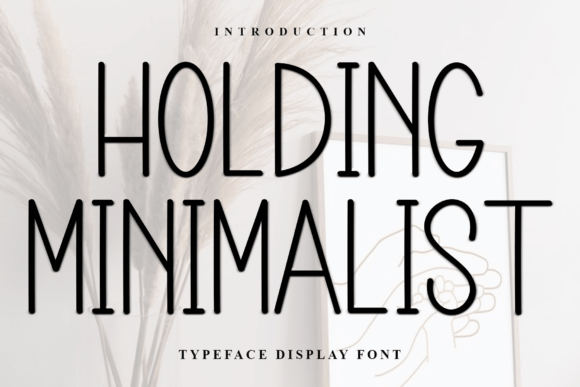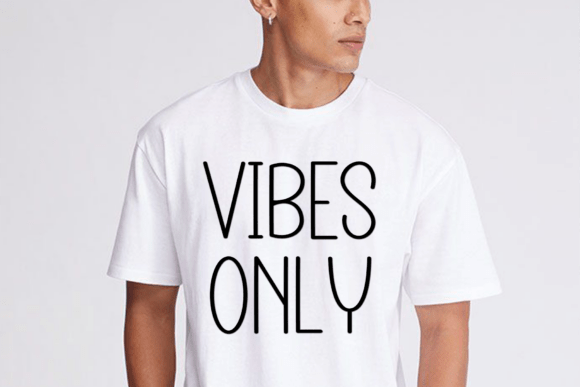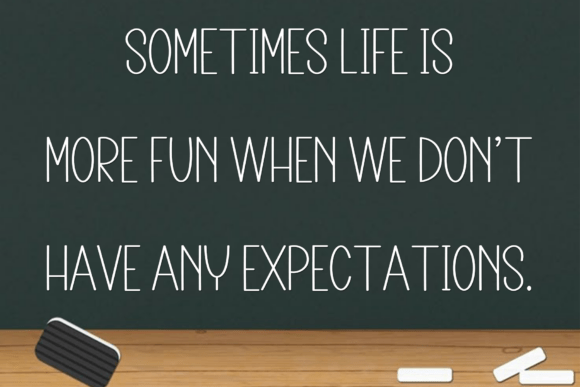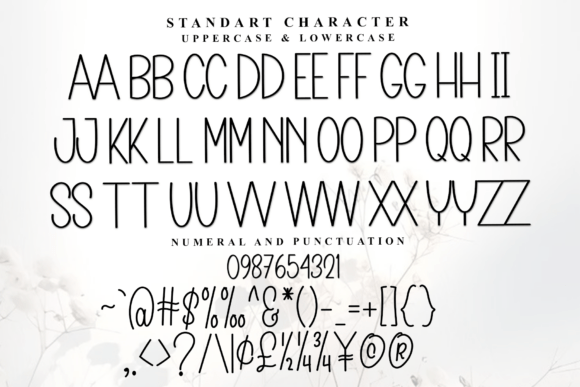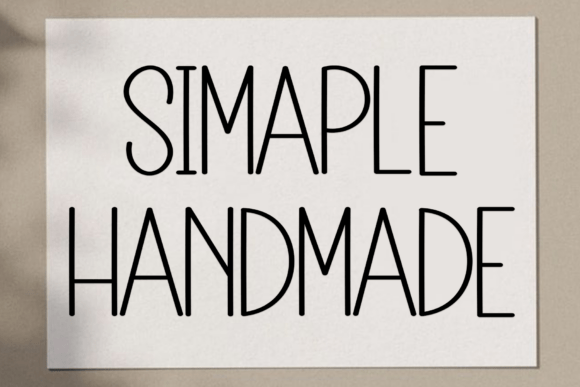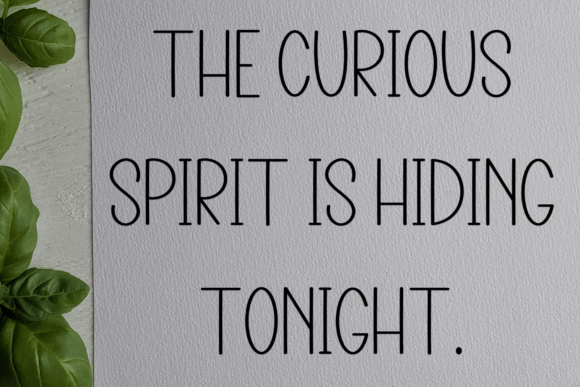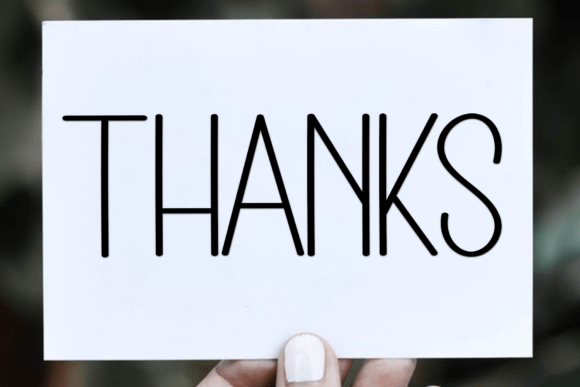
Have you ever sat down with a blank sheet of paper, a cup of coffee, and an idea that’s been brewing in your mind? The excitement of bringing your vision to life is a feeling like no other. As designers, we’ve all been there – searching for the perfect font to give our creations that extra oomph. That’s where the Holding Minimalist Font comes in – a beautiful and eye-catching font that adds a soft, unique touch to any design.
With its distinctive strokes and versatile character, the Holding Minimalist Font is the perfect addition to your design toolkit. Whether you’re working on a new project or looking to elevate your existing designs, this natural font style is sure to impress. Compatible with a range of applications, it’s the ideal choice for designers looking to take their work to the next level.
Holding Minimalist Font Key Features
- Unique Characteristics: Holding Minimalist Font features clean, simple lines and a modern aesthetic, making it ideal for minimalist and contemporary designs.
- Font Weight and Style: The font is available in a single weight (Regular) and a single style (Standard), providing a clean and consistent look.
- Scalability: The Holding Minimalist Font is designed to be highly scalable, making it suitable for use in various applications, from small text to large headings.
Holding Minimalist Font Review
Overall, I’m quite pleased with the Holding Minimalist Font. Here’s a rundown of what works well and what doesn’t:
- It’s perfect for simple, clean designs. The font is easy to read, even at small sizes.
- It’s highly legible, making it great for body text.
- It’s great for minimalistic designs, which is what it was made for.
- It’s not ideal for headings or titles, as it can get lost in the background.
- It lacks character sets and language support for some languages.
- It’s not suitable for use as a primary font in complex designs.
Overall, I think the Holding Minimalist Font is a solid choice for designers looking for a clean, minimalist font. It’s perfect for simple designs, but it may not be the best choice for more complex projects.
Holding Minimalist Font Practical Application Guide
Here are some tips to get the most out of Holding Minimalist Font:
- Use it sparingly to create a clean and minimalist design.
- Pair it with other fonts to create a visually appealing contrast.
- Experiment with different font sizes and styles to add emphasis.
Holding Minimalist Font is commonly used in:
- Editorial and publishing design.
- Web design and development.
Alternatives to Holding Minimalist Font
Open Sans is a clean and modern sans-serif font designed by Steve Matteson. It’s ideal for digital interfaces, web pages, and mobile apps where readability is crucial. Open Sans is more versatile than Holding Minimalist Font, as it comes in a wider range of weights and styles, making it suitable for both body text and headings.
Comparison: While Holding Minimalist Font is more geometric and minimalistic, Open Sans has a more rounded and friendly feel, making it a better choice for interfaces that require a softer tone.
Montserrat is a geometric sans-serif font designed by Julieta Ulanovsky. It’s perfect for urban and modern designs, such as city guides, magazines, and websites that require a bold and edgy feel. Montserrat is more condensed than Holding Minimalist Font, making it ideal for headlines and titles.
Comparison: While Holding Minimalist Font is more legible at small sizes, Montserrat is more striking and attention-grabbing, making it a better choice for designs that require a strong visual impact.
Lato is a sans-serif font designed by Łukasz Dziedzic. It’s a great choice for designs that require a clean and elegant feel, such as corporate websites, blogs, and magazines. Lato is more refined than Holding Minimalist Font, with a more subtle and sophisticated tone.
Q: Can I use the Holding Minimalist Font for digital displays, such as web pages and mobile apps?
Yes, the Holding Minimalist Font is suitable for digital displays, including web pages and mobile apps. However, please note that the font may not be as legible on very small screens or at very small sizes. It’s recommended to test the font at different resolutions and sizes to ensure optimal readability.